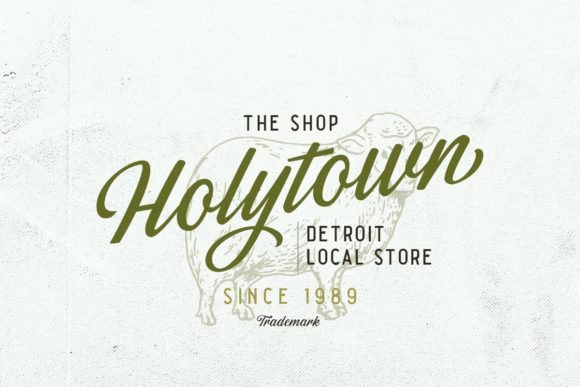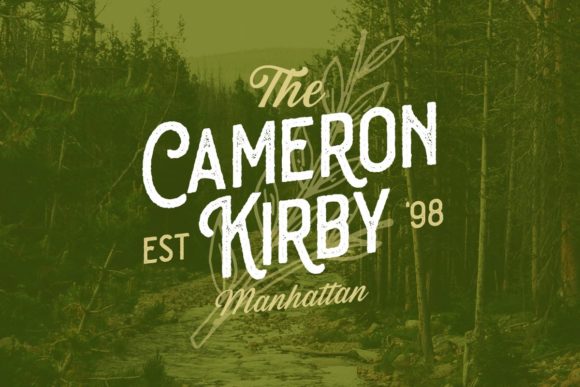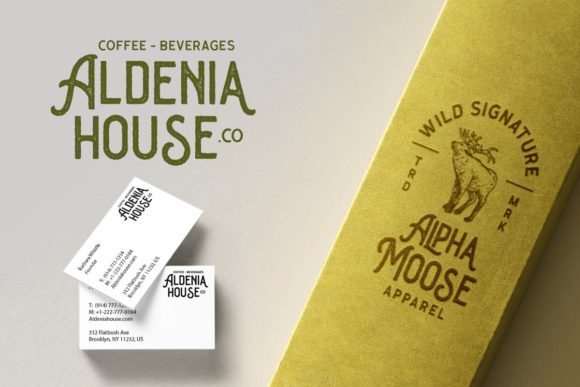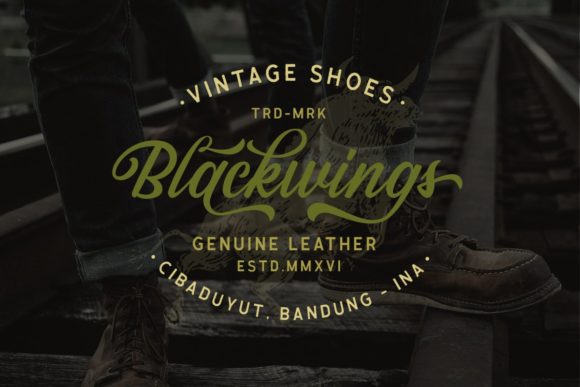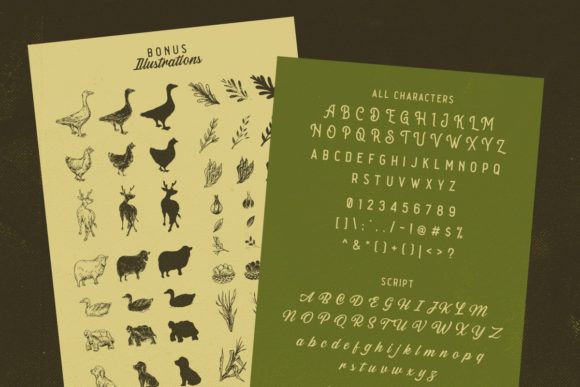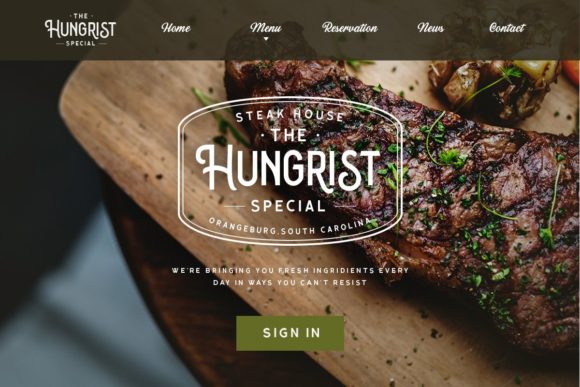
Introduction to Sabatons Font
Sabatons is a vintage font duo with regular and rough styles.
Get inspired by its rustic appearance .
Key Features of Sabatons Font
Why Choose Sabatons Font?